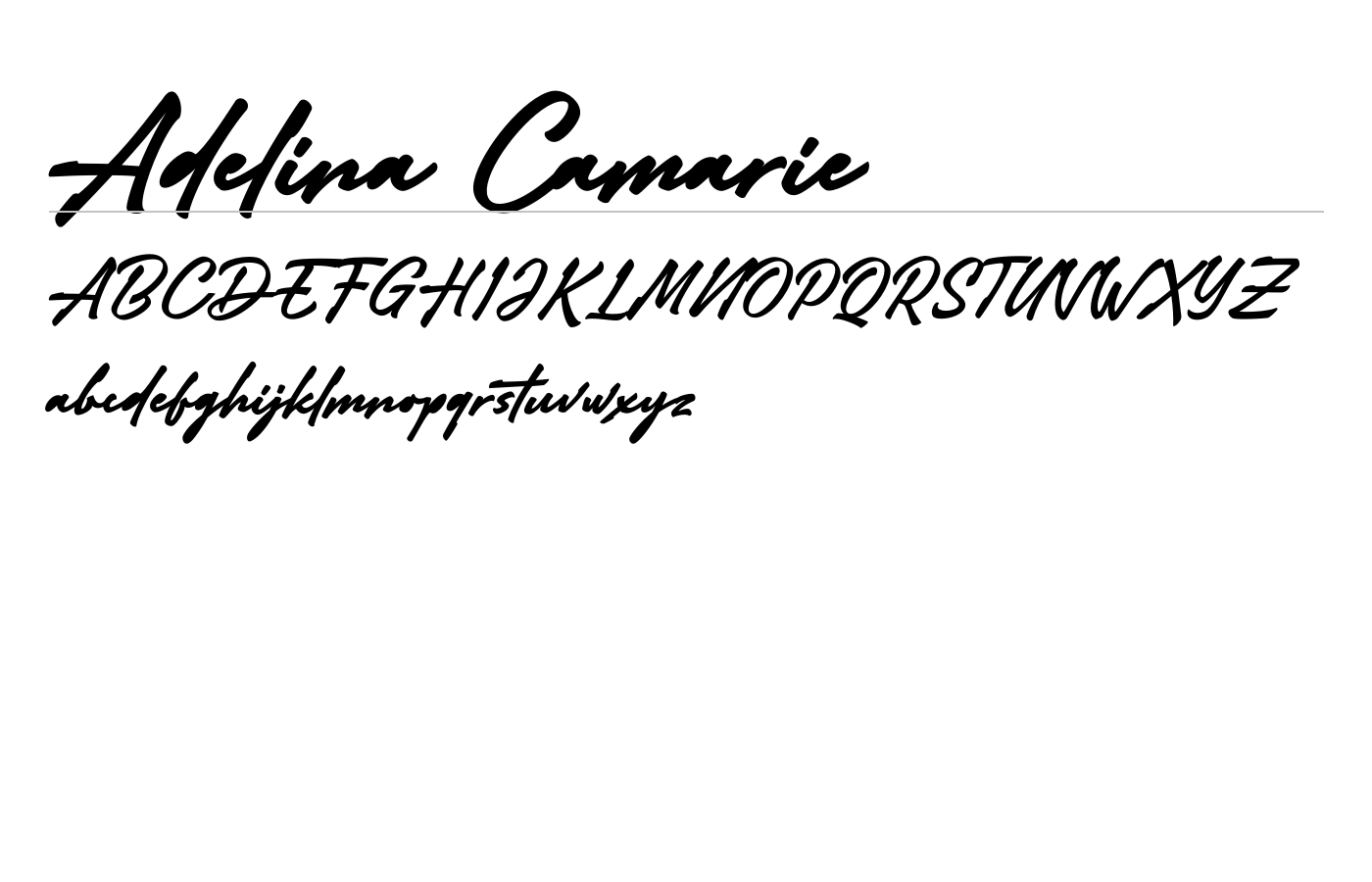
Adelina Camarie is a stylish, script-style font that combines a bold, confident stroke with elegant, flowing letterforms. Its dynamic, handwritten appearance with a moderate x-height and smooth curves makes it perfect for adding a personal, artistic touch to branding, invitations, and creative headlines. This font stands out for its expressive personality, making it ideal for projects that need a modern yet sophisticated script feel.
Adelina Camarie Font
About Adelina Camarie Font
| Font family | Adelina Camarie Font |
| Designer | Rangga Singgih Subekti . 2019 |